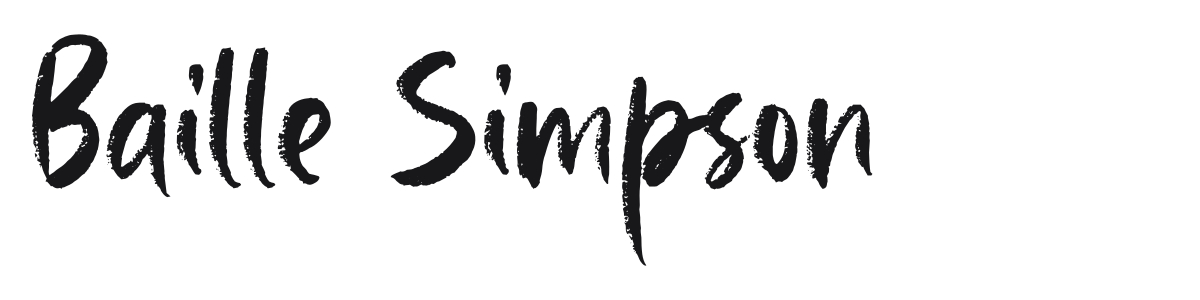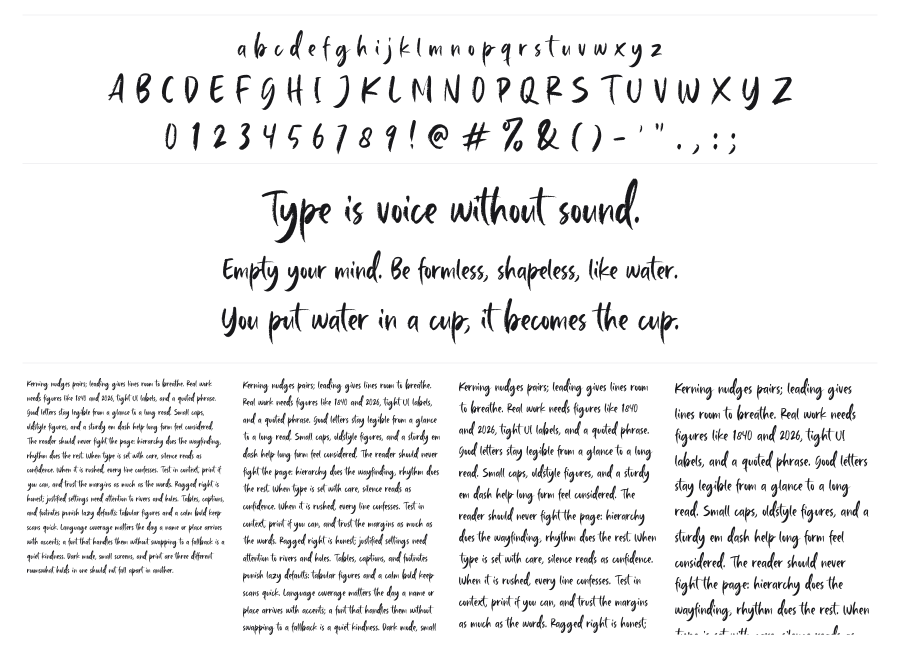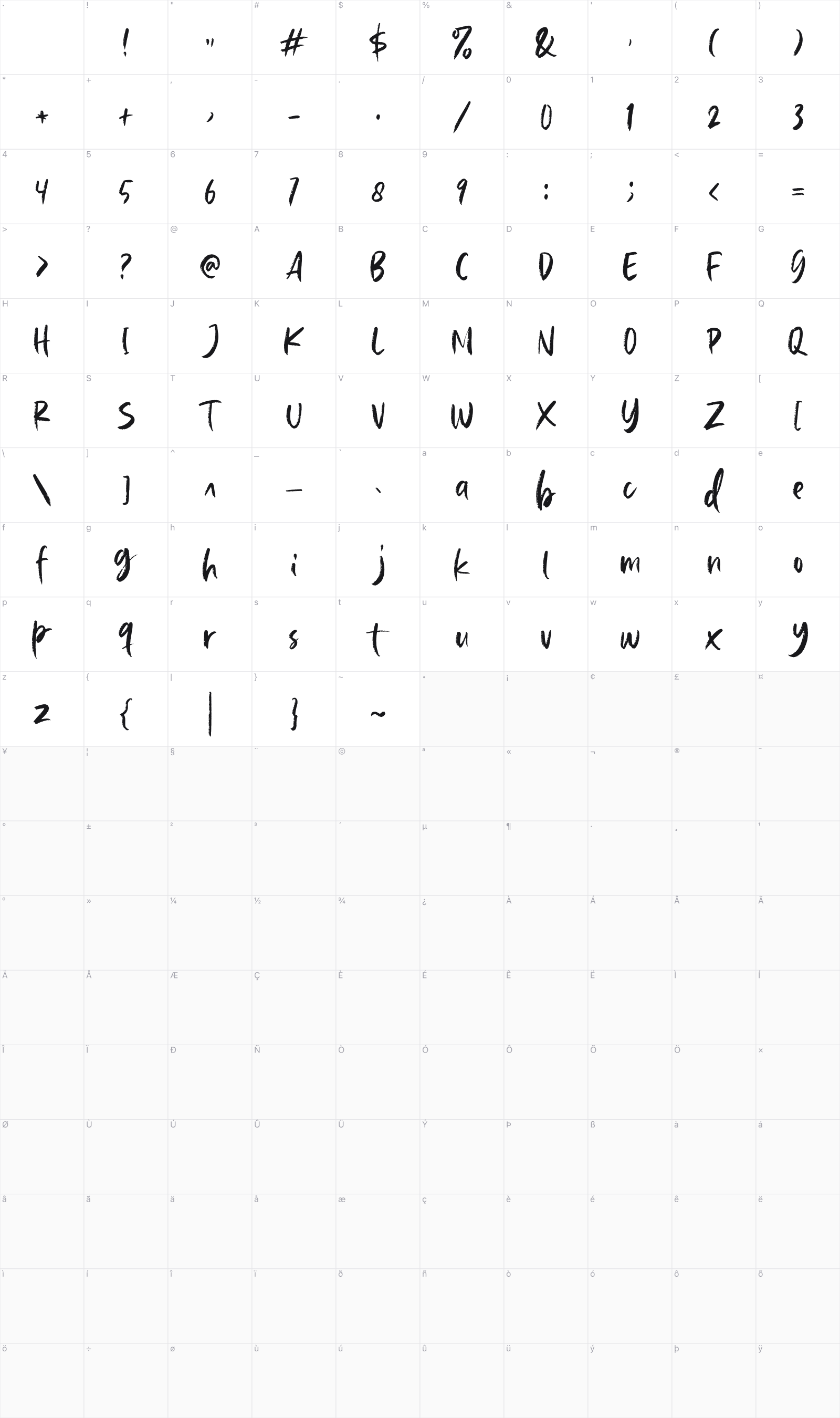
Baille Simpson
Baille Simpson is a modern brush script with bold, ink-textured strokes and a lively hand-lettered energy. Heavy downstrokes taper into fine hairlines with visible bristle drag, giving each character a genuine painted quality rather than a digital approximation. It works well in branding, packaging, and editorial headlines where a raw, handcrafted feel is the point.